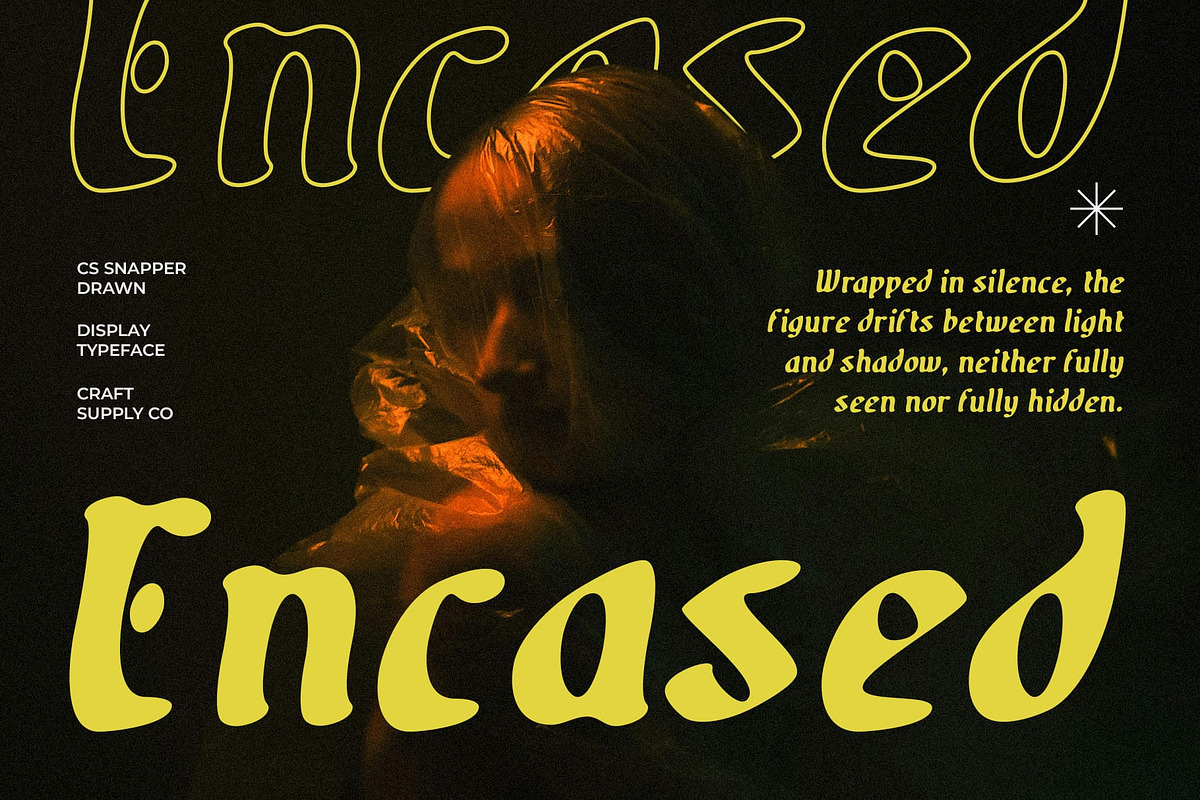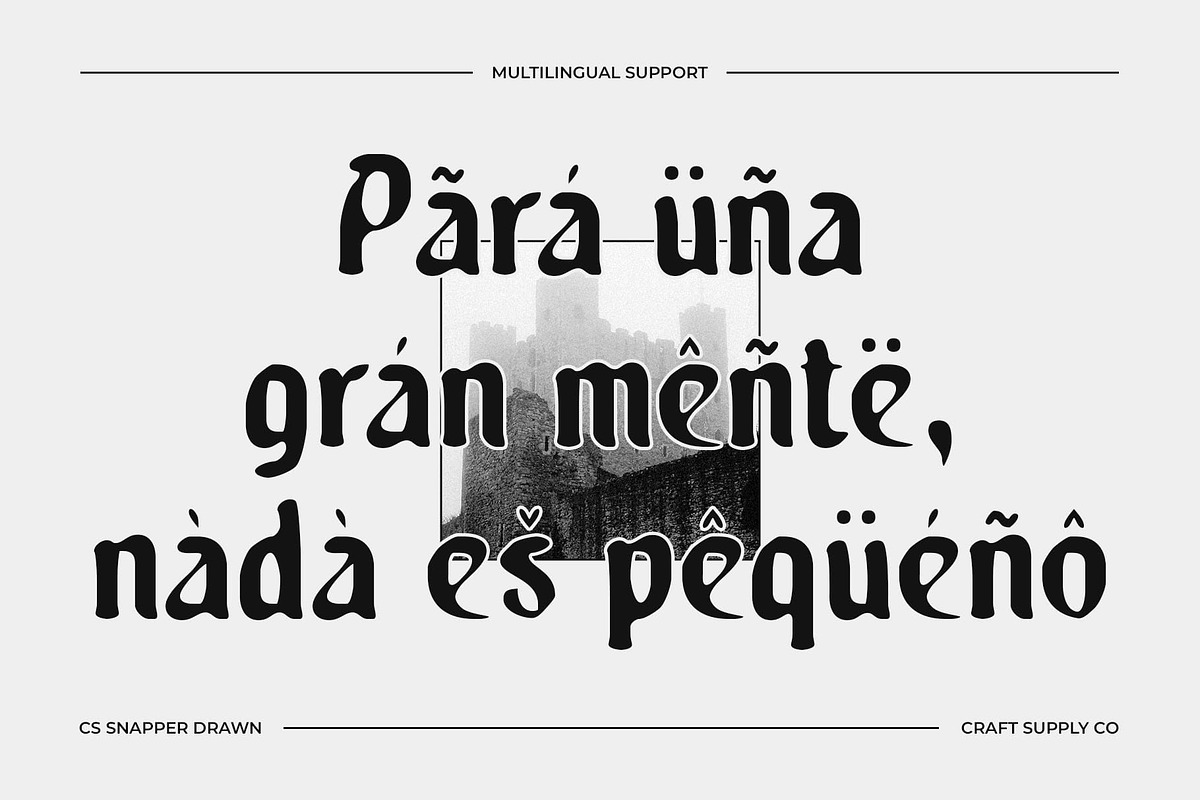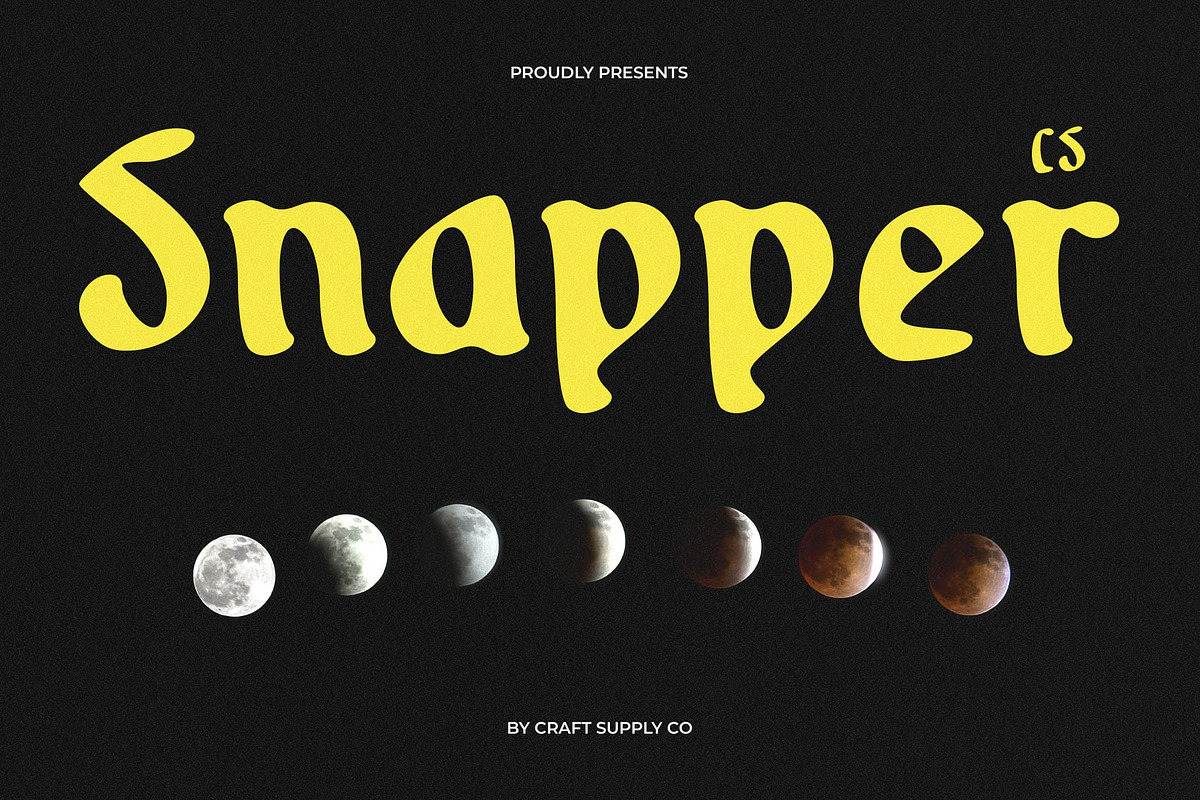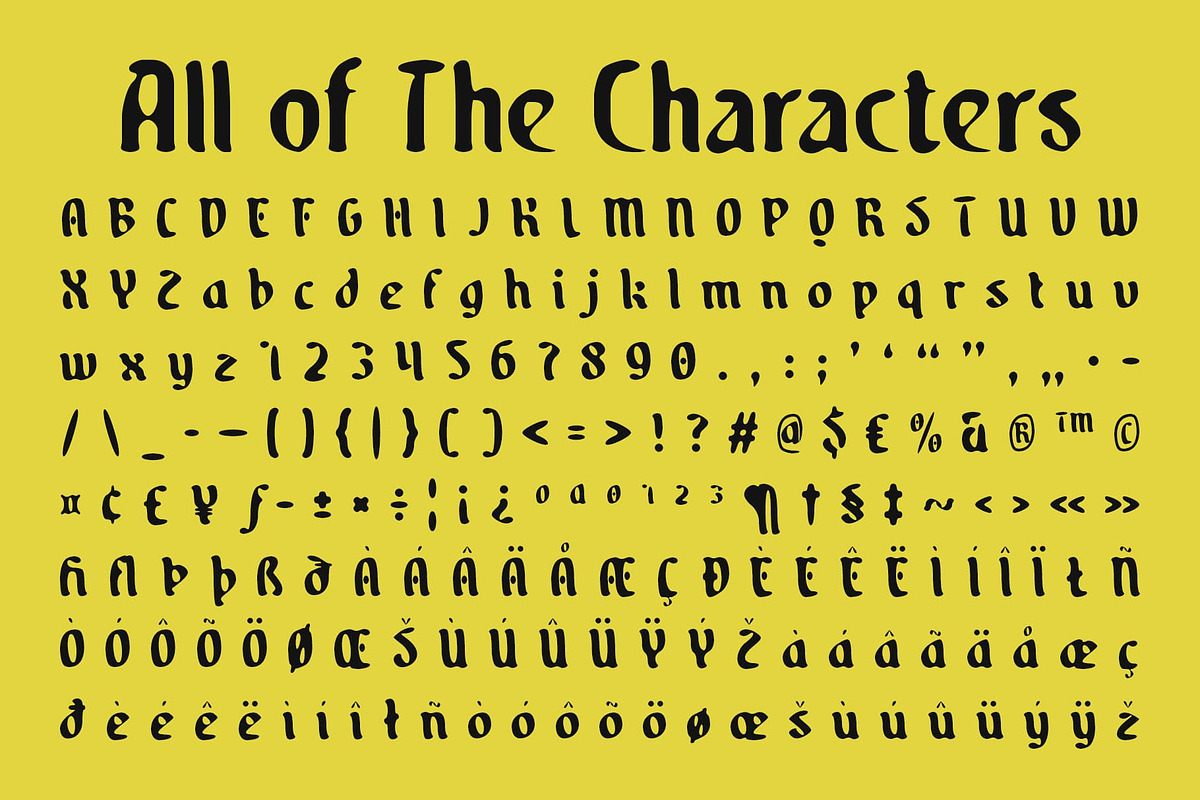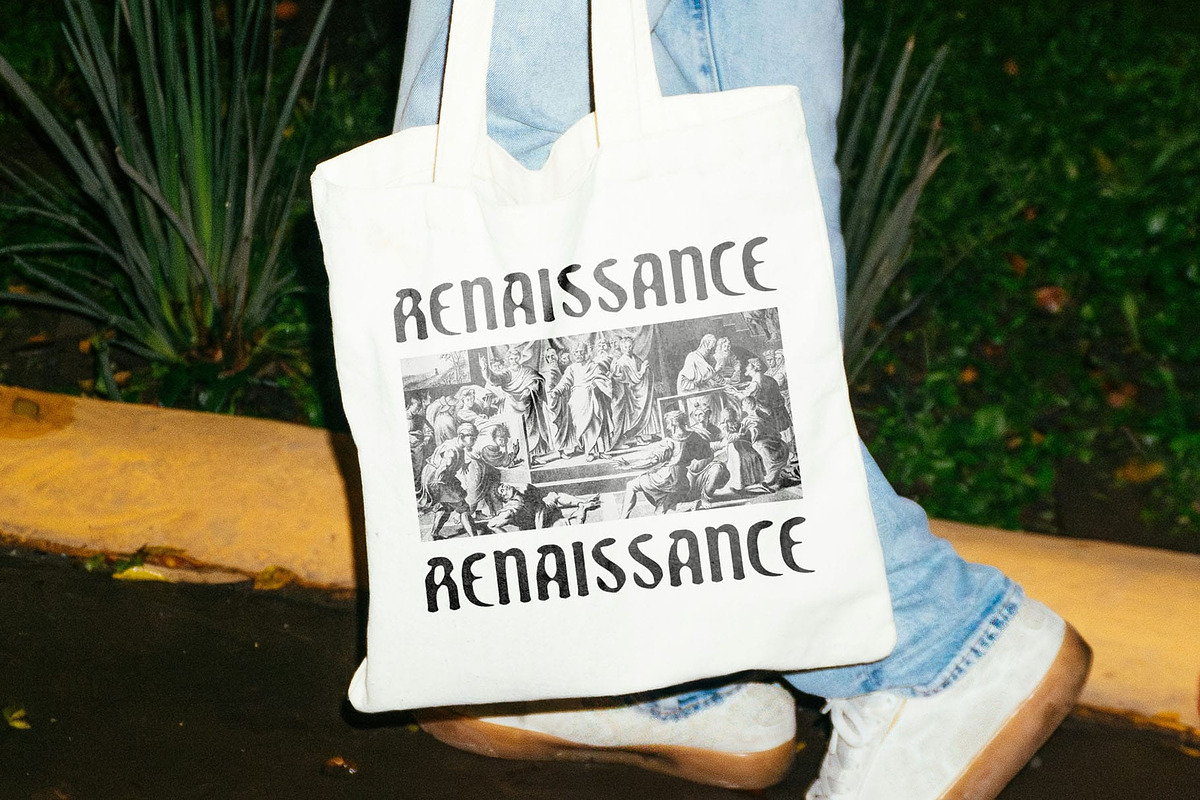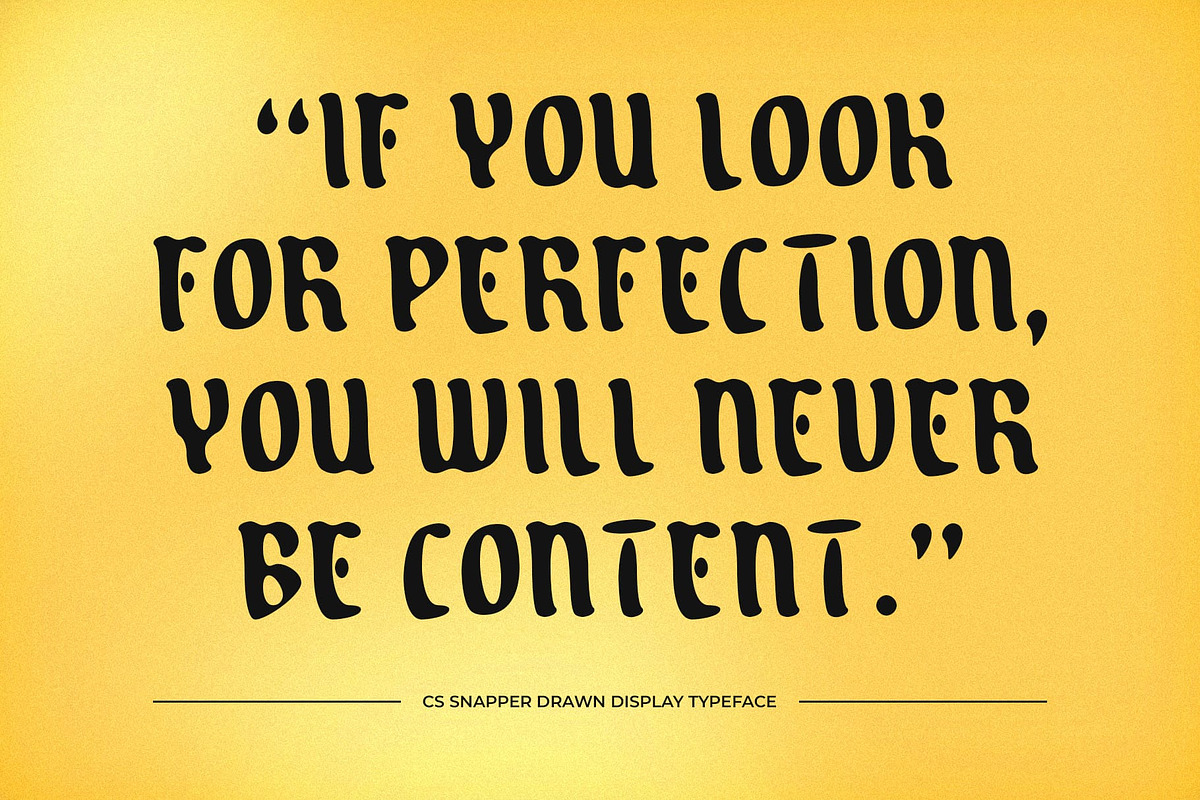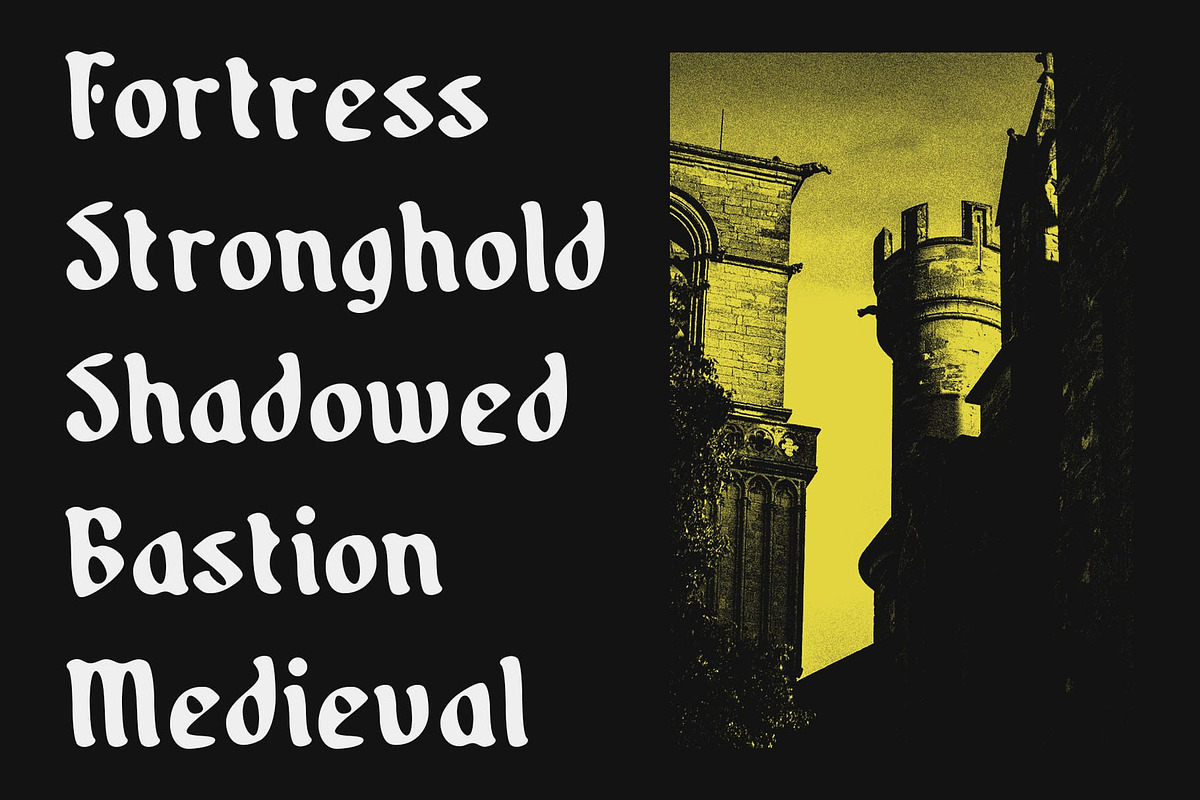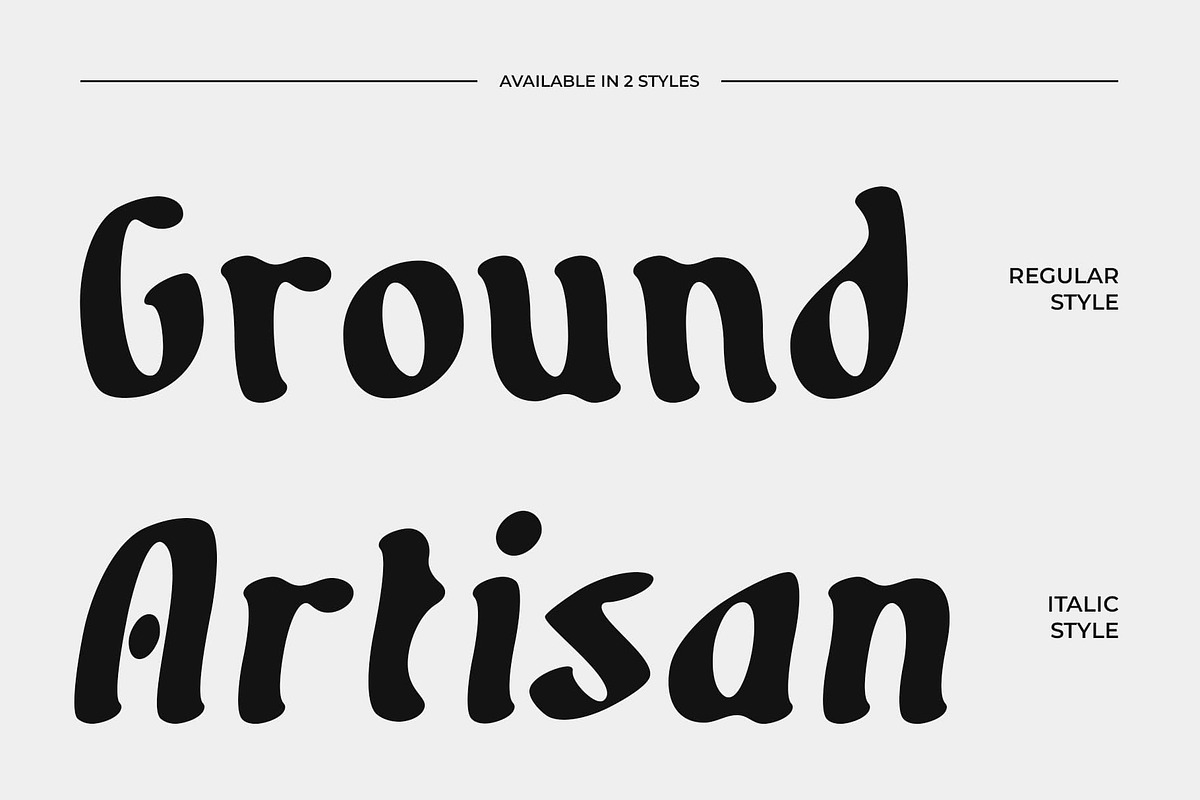
CS Snapper Drawn
CS Snapper Drawn – Modern Blackletter with Gothic Edge
Modern Blackletter with Artistic Flair This font is a modern blackletter font that redefines tradition with a bold and expressive presence. Rooted in the classic gothic style, its sharp forms and commanding structure exude mystery and strength. The drawn texture amplifies its handmade quality, giving each character a crafted personality that stands apart from conventional blackletter fonts.
Bold Forms with Gothic Mystery The bold, gothic-inspired shapes of make it a striking choice for projects that demand attention. Its dramatic angles and powerful proportions channel the heritage of medieval calligraphy, yet the drawn effect softens the rigidity, creating a balance between historical weight and artistic freedom.
Handmade Texture for Unique Expression What sets this font apart is its drawn texture, which adds depth, irregularity, and authenticity. The handmade feel brings warmth to an otherwise rigid genre, making it versatile for modern uses. Whether used at large display sizes or as an accent, the font injects creativity and individuality into every project.
Perfect for Impactful Design This font is ideal for book covers, posters, branding, and editorial layouts that want to embrace both history and artistry. Its classic roots meet a distinctive handmade edge, delivering a font that is timeless yet refreshingly original. From gothic-inspired branding to bold visual statements, this font ensures your design captures attention with elegance and mystery.